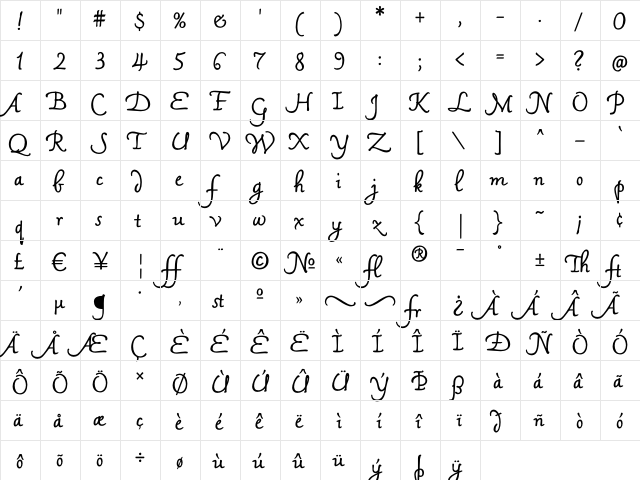
Mama Script Regular
Design Context for Mama Script Typeface
Mama Script flows with the natural rhythm of handwritten lettering, making it ideal for designs that call for warmth and personal expression.
Font Pairing: Combine Mama Script with a simple geometric sans for maximum contrast — the tension between flowing curves and clean structure is a classic typographic pairing.
Pro Tip: Pair Mama Script with a clean sans-serif for supporting text. The contrast between fluid script and geometric structure creates an elegant typographic hierarchy.